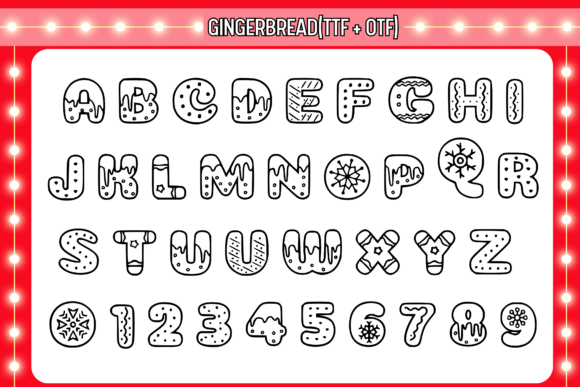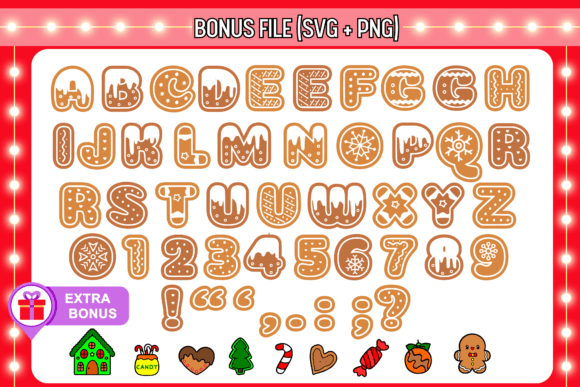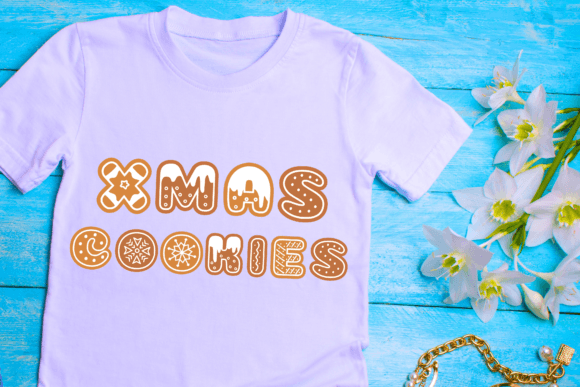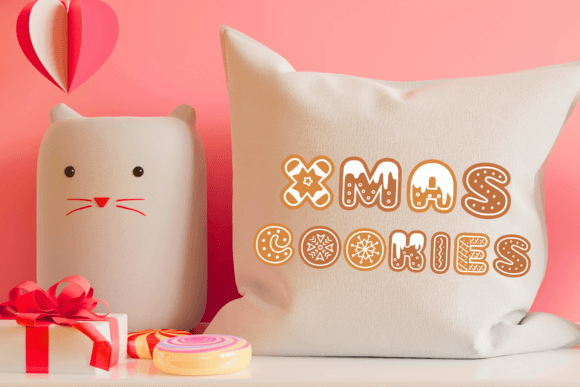
The Sweetest Font for Your Holiday Designs: A Deep Dive into Gingerbread Font
Ah, the holiday season is upon us, and you know what that means – a flurry of festive design projects! I still remember the year I was tasked with creating a Christmas card for my client’s family reunion. I spent hours scrolling through font after font, trying to find the perfect one that screamed “holiday cheer.” That’s when I stumbled upon the Gingerbread Font, and it was love at first sight! ✨
What Makes Gingerbread Font So Special?
Gingerbread Font is a fun, decorative font that will make your designs look like a sweet treat. Each letter is carefully crafted to resemble gingerbread cookies, complete with icing swirls and dots. It’s the perfect addition to any holiday-themed project, from Christmas cards to festive party invitations.
- ✨ Unique and playful design that’s sure to stand out
- ✅ Easy to read, even in smaller sizes
- 🎉 Perfect for holiday-themed projects, from Christmas cards to New Year’s Eve invitations
- 👍 Highly versatile – use it for titles, headings, or even body text
- 🤔 May not be suitable for very formal or professional designs
- ⚠️ Some characters may not be suitable for small sizes, as details can get lost
The Backstory Behind Gingerbread Font
Legend has it that Gingerbread Font was created by a designer who loves baking and holiday decorating. She wanted to create a font that would capture the whimsy and playfulness of the holiday season, and thus Gingerbread Font was born. With its intricate details and festive flair, it’s no wonder this font has become a favorite among designers and crafters alike.